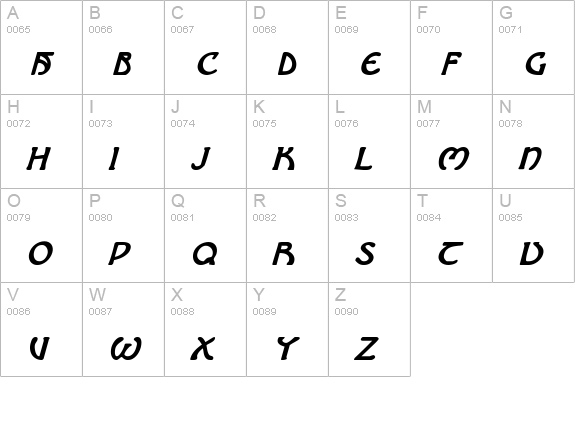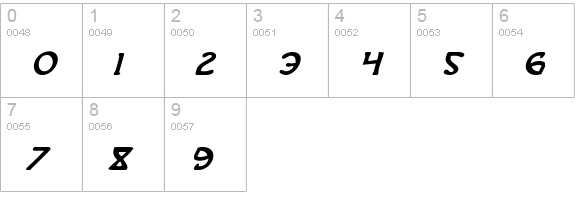
Brin Athyn Bold Italic is a strong, high-contrast, italic variant in the Brin typeface family \xE2\x80\x94 well suited to headlines, attention-grabbing titles, and strong calls-to-action.
Brin Athyn Bold Italic font is a bold and dynamic typeface that exudes confidence and modernity. Its sleek and stylish design makes it perfect for headings, titles, and branding projects. The bold and italic combination adds a touch of flair and sophistication to any design. Best of all, Brin Athyn Bold Italic font is available for free download at FontsMarket.com. This means you can easily access this high-quality font without any cost, making it a valuable addition to your font collection. Whether you're working on a professional project or a personal creative endeavor, Brin Athyn Bold Italic font is sure to make a statement and elevate your designs. Download it today and unleash your creativity with this stunning typeface.